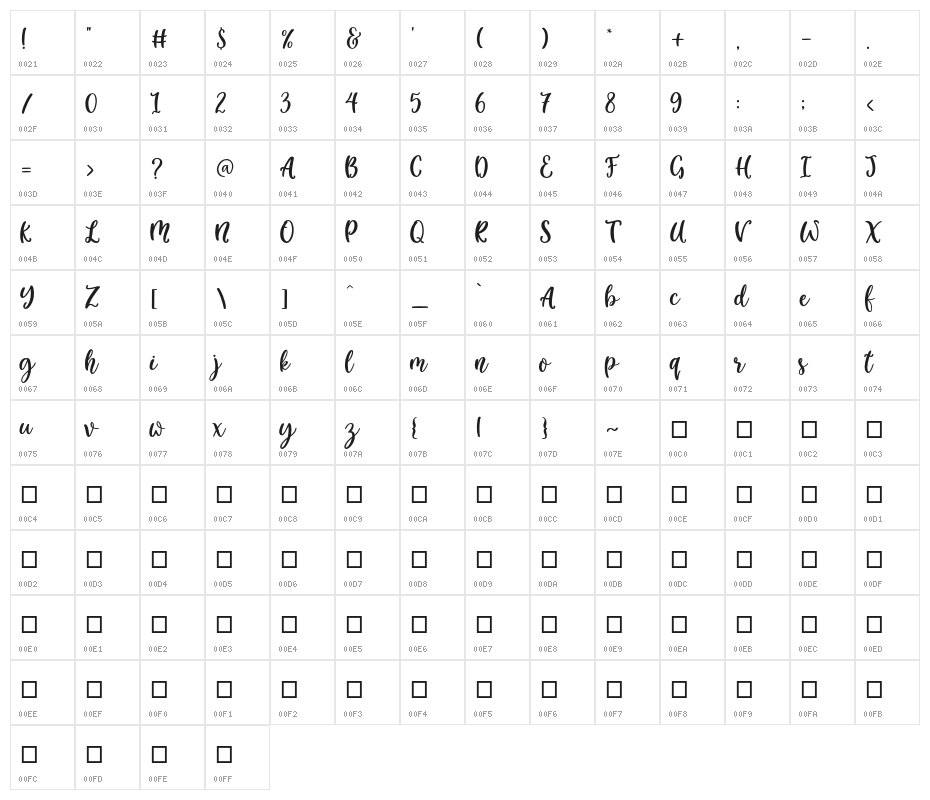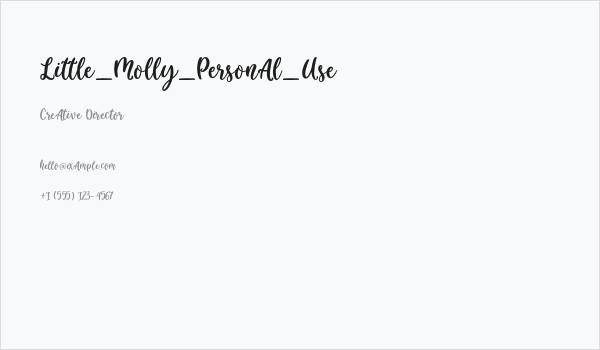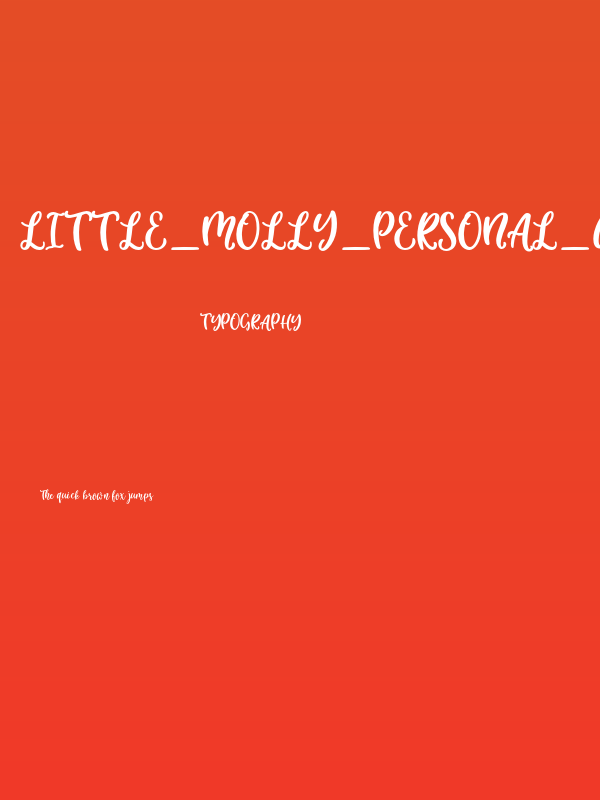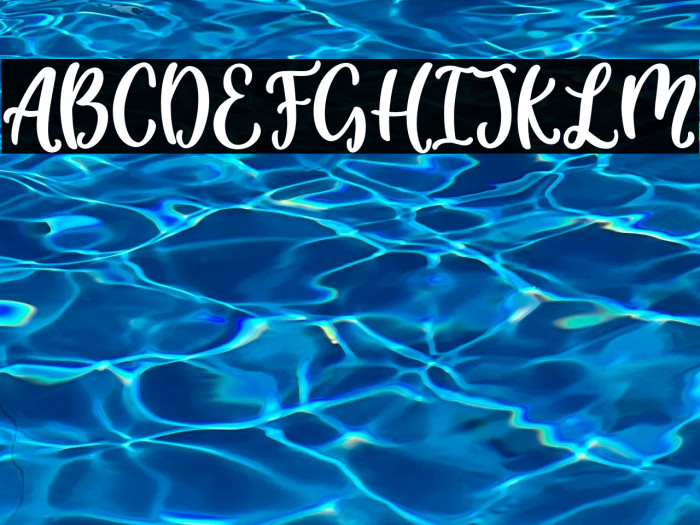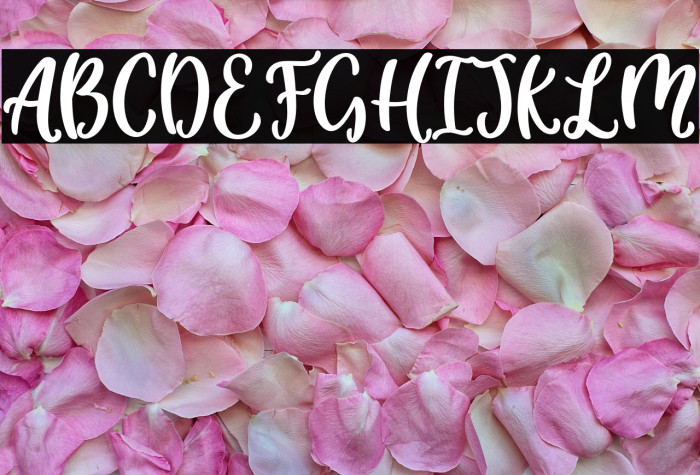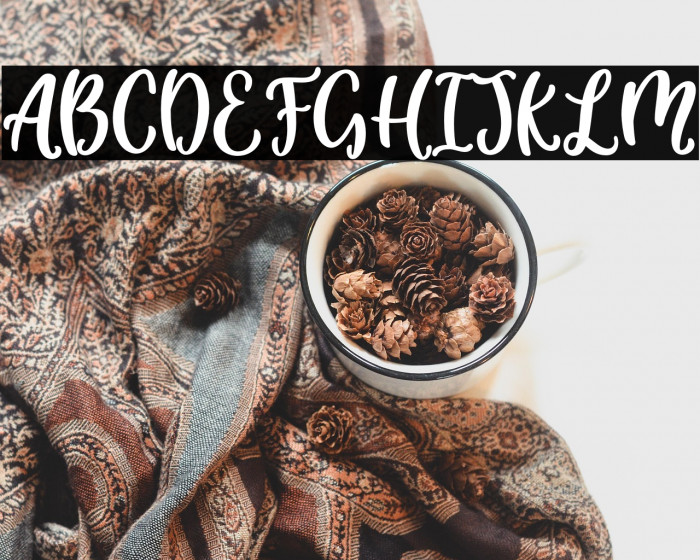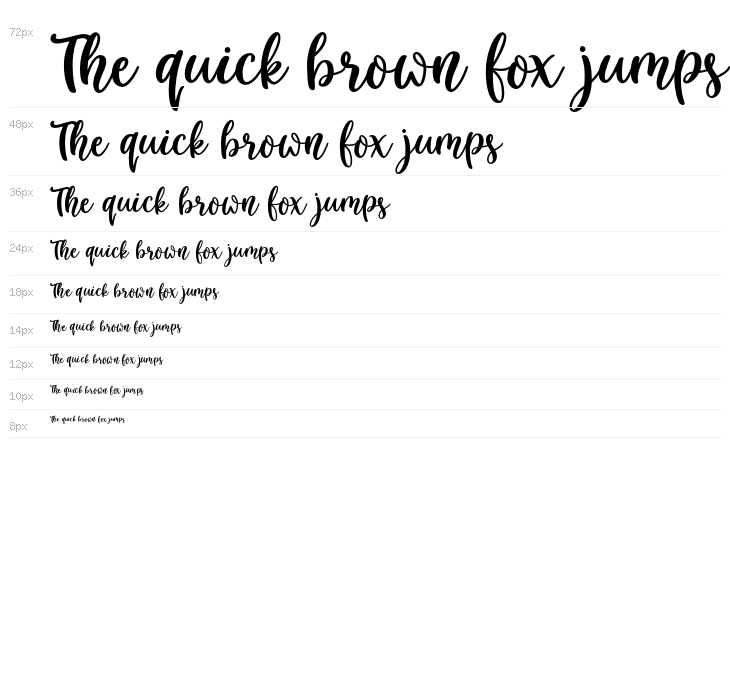
Little_Molly_Personal_Use Font
Little_Molly_Personal_Use Description
This font features a playful and whimsical script style with a handwritten appearance. The letters are fluid and connected, giving it a casual and friendly vibe. The uppercase letters are bold and slightly larger than the lowercase, which are more delicate and flowing. The numbers maintain the same playful style, while the special characters are creatively integrated to match the overall aesthetic. The strokes are consistent in width, providing a harmonious look across all characters. This font is perfect for adding a personal touch to any project.
| Proposed Projects | Ideal for greeting cards, invitations, personal branding, and creative projects that require a personal touch. |